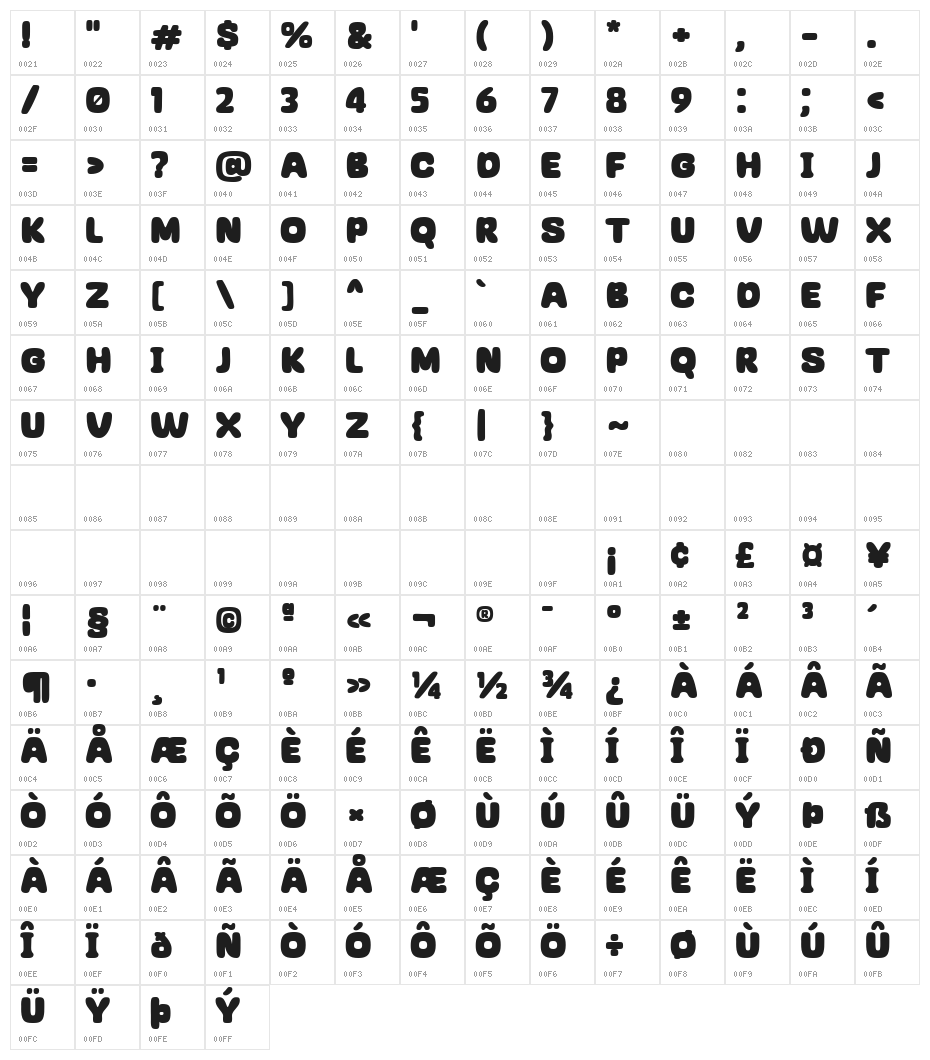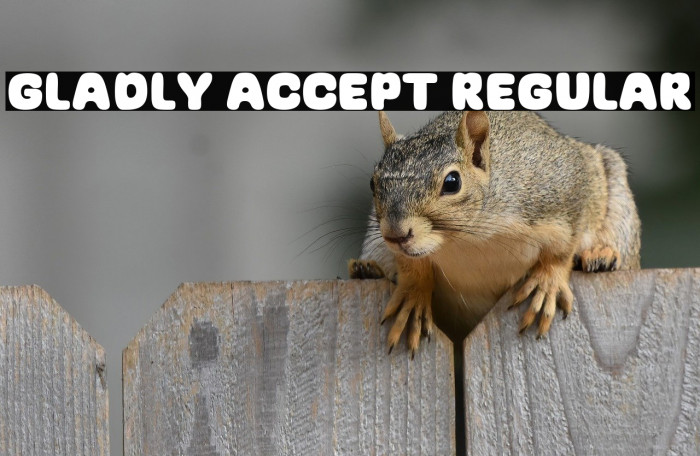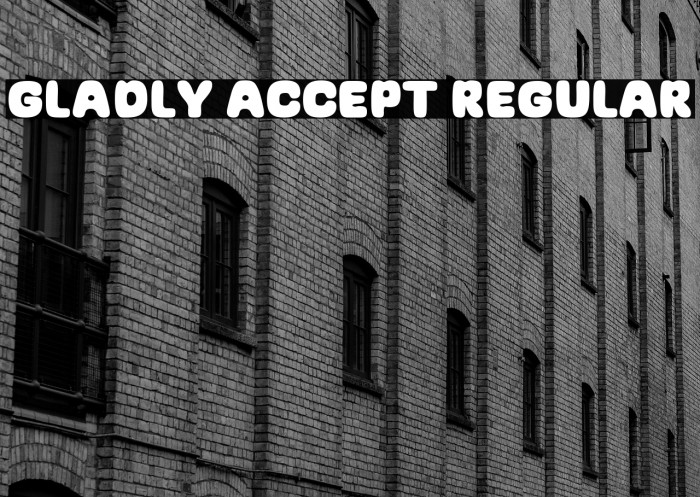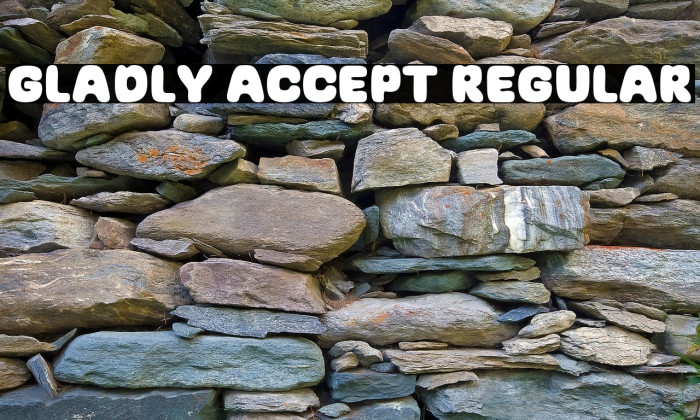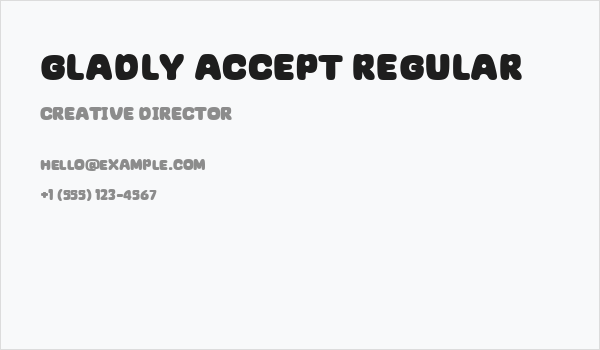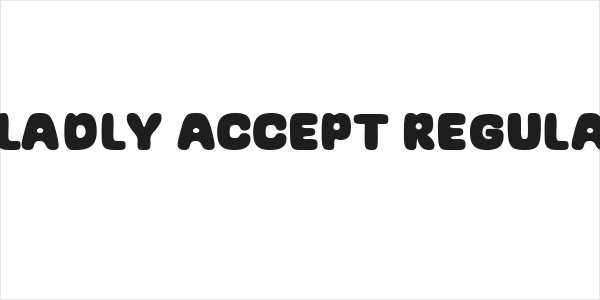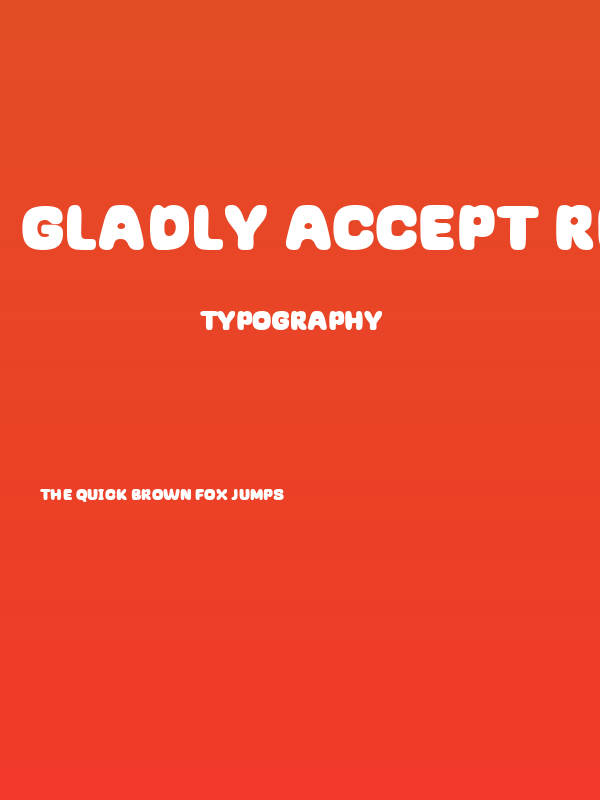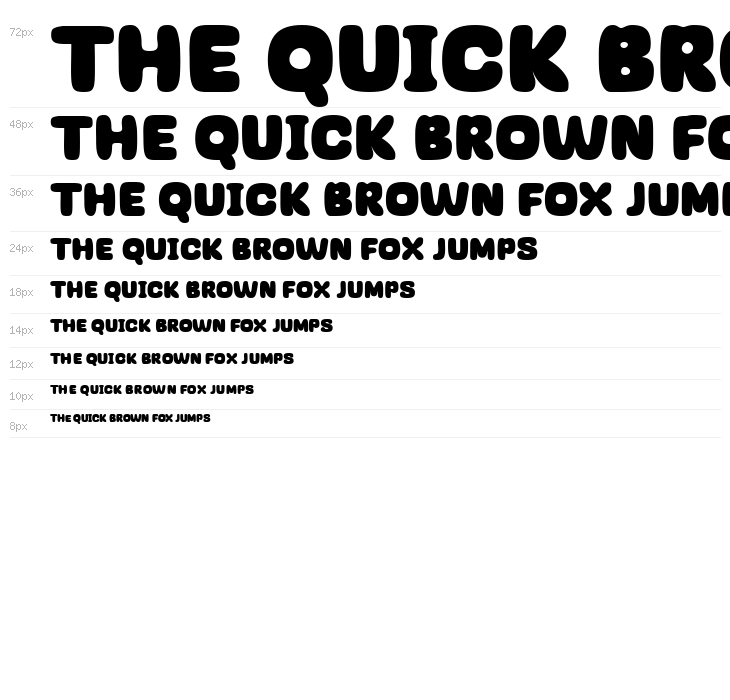
Gladly Accept Regular Font
Gladly Accept Regular Description
This font features bold, rounded characters with a playful and friendly appearance. The letters are thick and uniform, with a consistent stroke width that gives them a strong presence. The rounded edges soften the overall look, making it approachable and suitable for casual or fun designs. The numbers and special characters maintain the same style, ensuring a cohesive look across all elements. The font's design is simple yet impactful, making it ideal for projects that require a bold statement without being overly formal.
| Proposed Projects | Ideal for children's books, playful branding, posters, and social media graphics. |